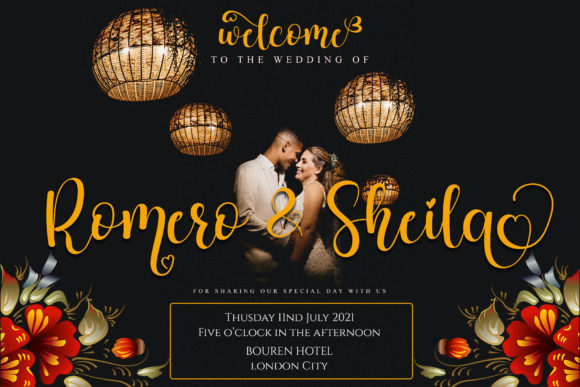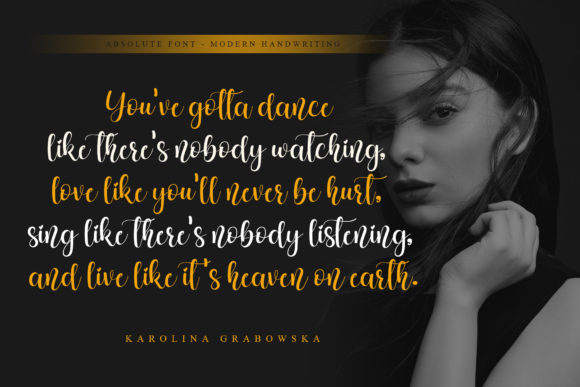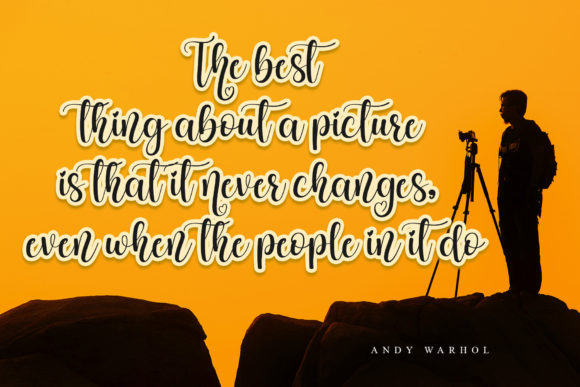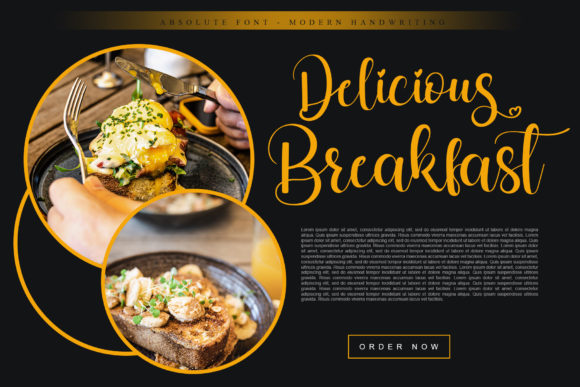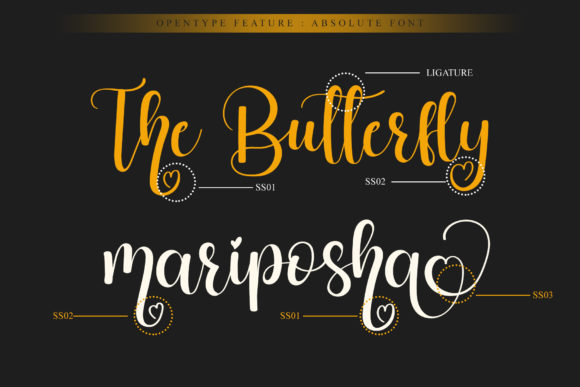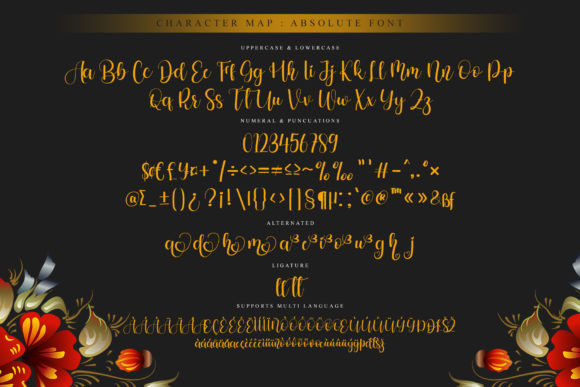
Introducing Absolute Font: Elevate Your Designs with Elegance
Are you on the hunt for a font that exudes luxury and sophistication? Look no further than Absolute Font, a stunning handwritten font that is sure to take your designs to the next level. With its elegant touch and timeless style, Absolute Font is the perfect choice for designers and crafters looking to create spectacular designs that leave a lasting impression.
The Perfect Blend of Style and Sophistication
Absolute Font is a masterclass in elegant design. Its incredibly distinct and timeless style is sure to fall in love with, and its versatility makes it perfect for a wide range of projects. Whether you’re working on a luxury brand identity, a high-end product packaging, or a stylish website design, Absolute Font is the perfect choice.
What Makes Absolute Font So Special?
- Elegant Touch: Absolute Font boasts an elegant touch that is sure to elevate your designs. Its smooth lines, flowing curves, and precise craftsmanship make it a true masterpiece.
- Timeless Style: Unlike trendy fonts that quickly go out of style, Absolute Font has a timeless quality that ensures your designs will remain stylish for years to come.
- Distinct Character: With its unique and distinct character, Absolute Font is sure to set your designs apart from the crowd. Its personality shines through in every letter, making it perfect for brands that want to make a statement.
- Versatility: Absolute Font is incredibly versatile, making it perfect for a wide range of projects, from luxury branding to website design, and everything in between.
Why Choose Absolute Font?
With so many fonts on the market, why choose Absolute Font? Here are just a few reasons why designers and crafters are falling in love with this stunning font:
- Easy to Read: Despite its elegant and sophisticated style, Absolute Font is incredibly easy to read, making it perfect for body text and headlines.
- Highly Legible: The font’s high legibility ensures that your message gets across clearly, even at small sizes.
- Scalable: Absolute Font is designed to look great at any size, from large headlines to small body text.
- Extensive Language Support: With support for multiple languages, Absolute Font is perfect for global brands and designers who work with international clients.
How to Use Absolute Font in Your Designs
Now that you’ve fallen in love with Absolute Font, here’s how to use it in your designs:
- Pair it with Other Fonts: Absolute Font pairs perfectly with other fonts, making it easy to create stunning font combinations.
- Use it for Headlines and Titles: With its elegant and sophisticated style, Absolute Font is perfect for headlines and titles.
- Experiment with Colors and Textures: Don’t be afraid to experiment with different colors and textures to give your designs an extra boost.
In conclusion, Absolute Font is a luxury handwritten font that is sure to elevate your designs with its elegant touch and timeless style. With its versatility, legibility, and scalability, it’s perfect for a wide range of projects, from luxury branding to website design. So why wait? Fall in love with Absolute Font today and create spectacular designs that leave a lasting impression.